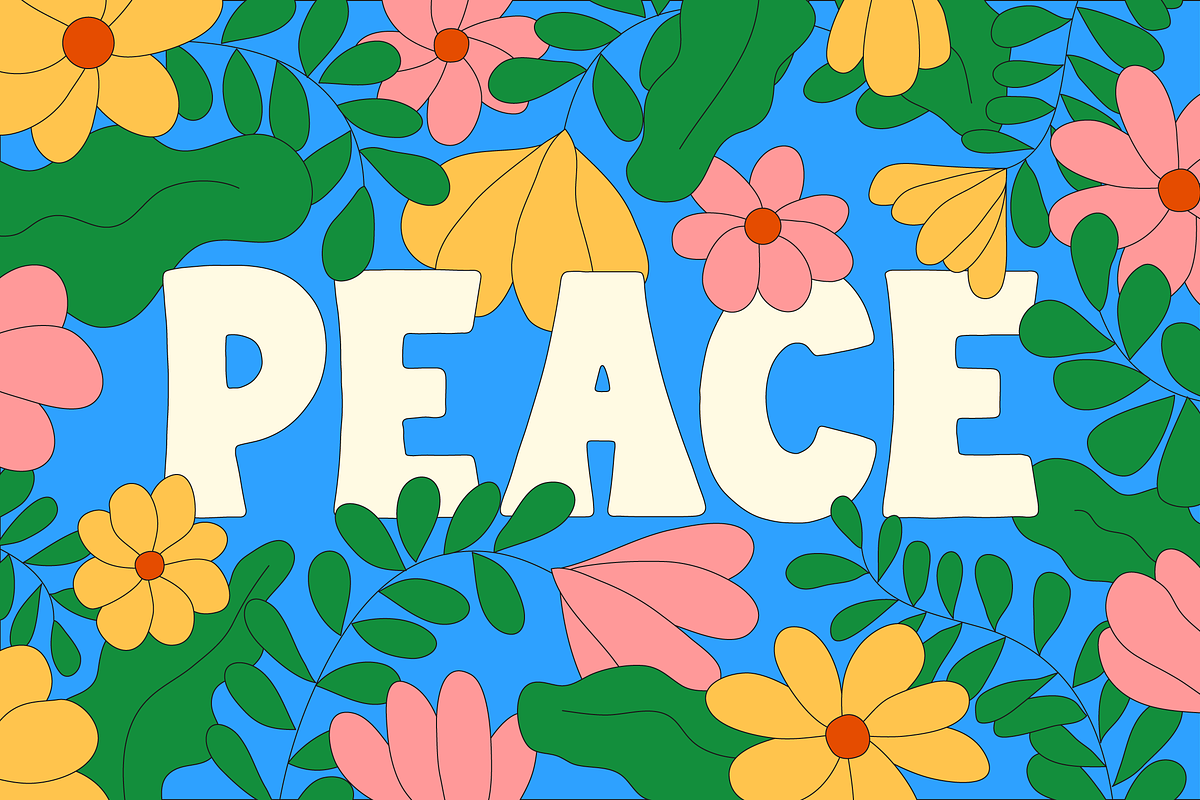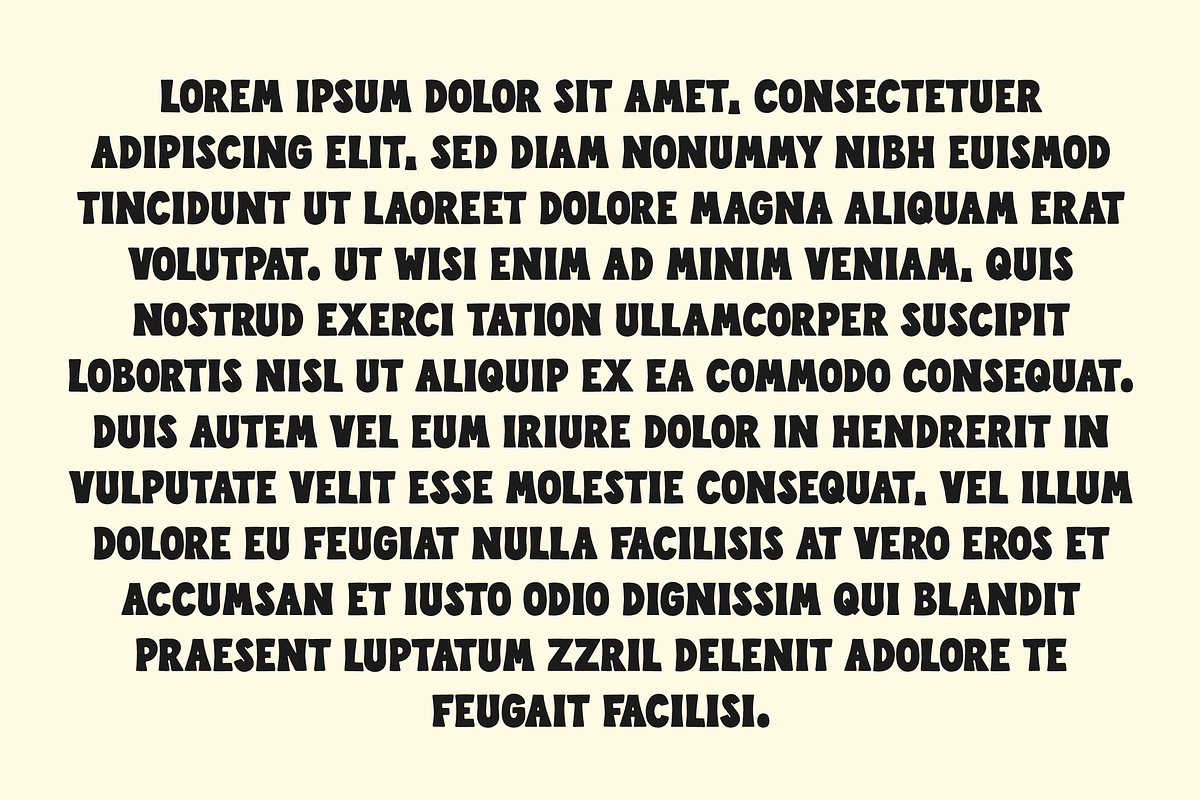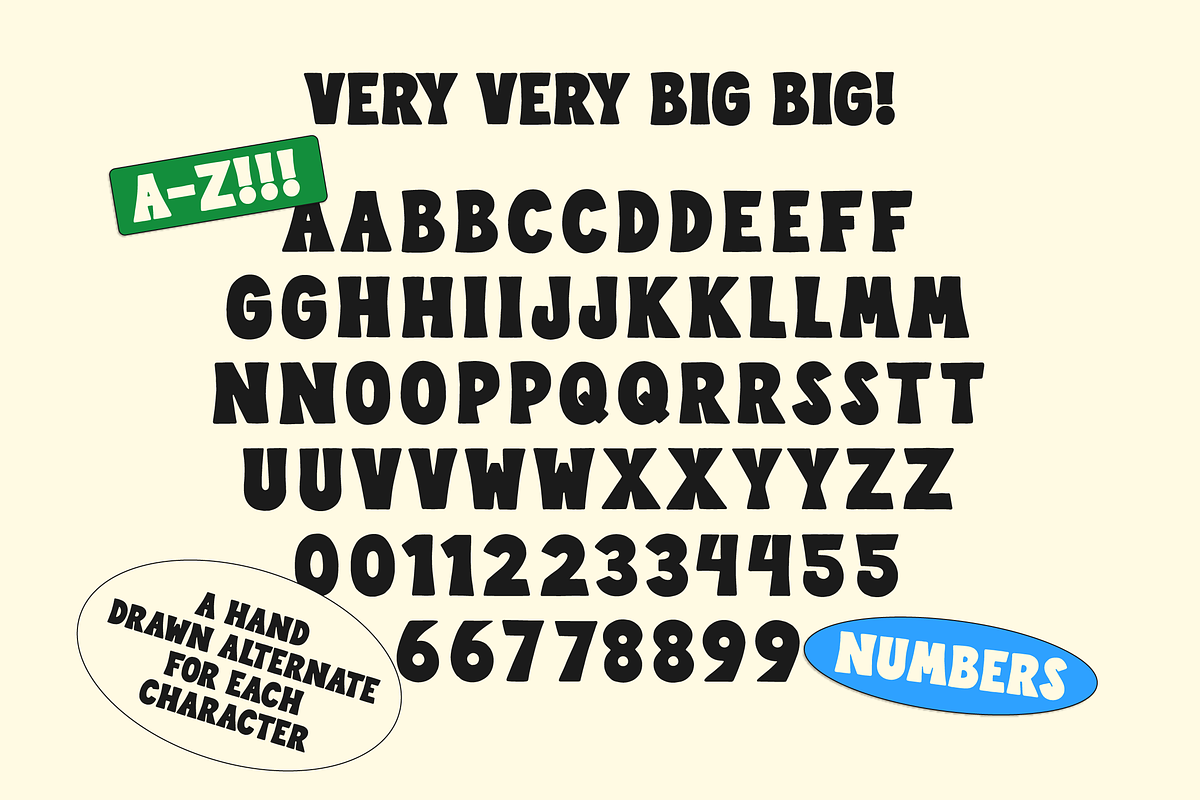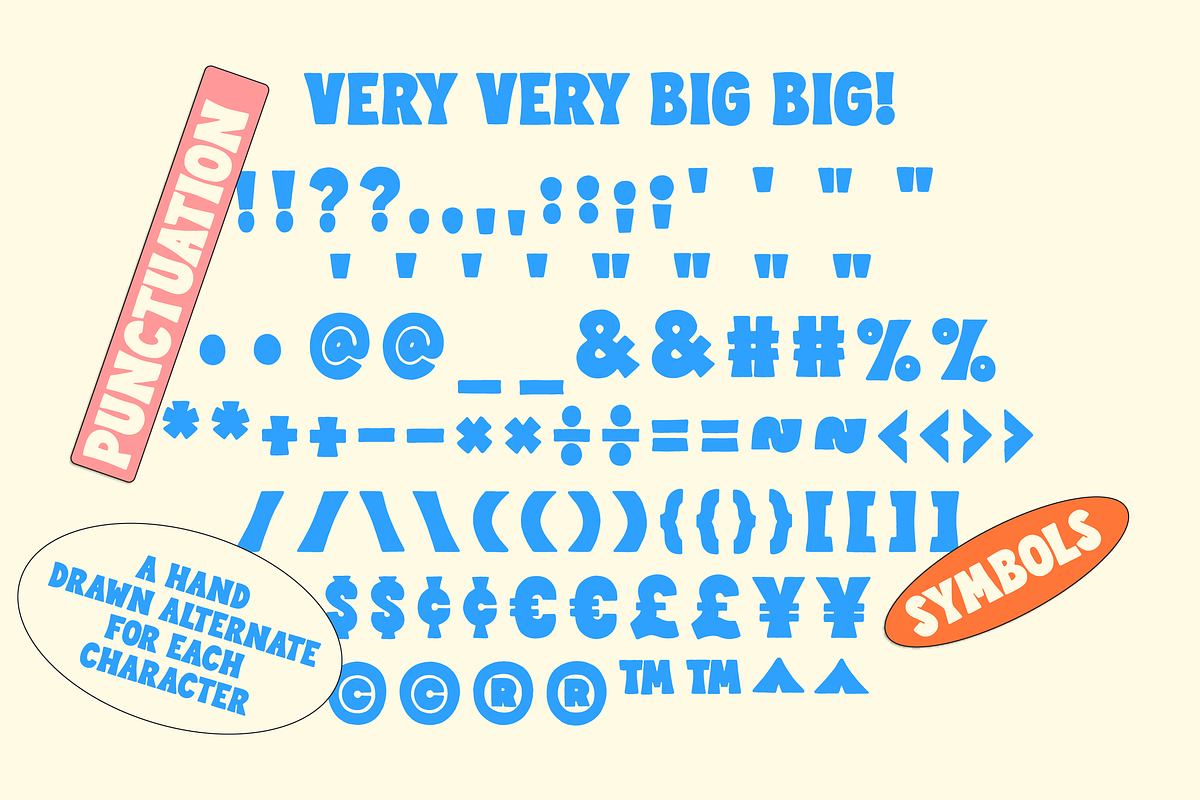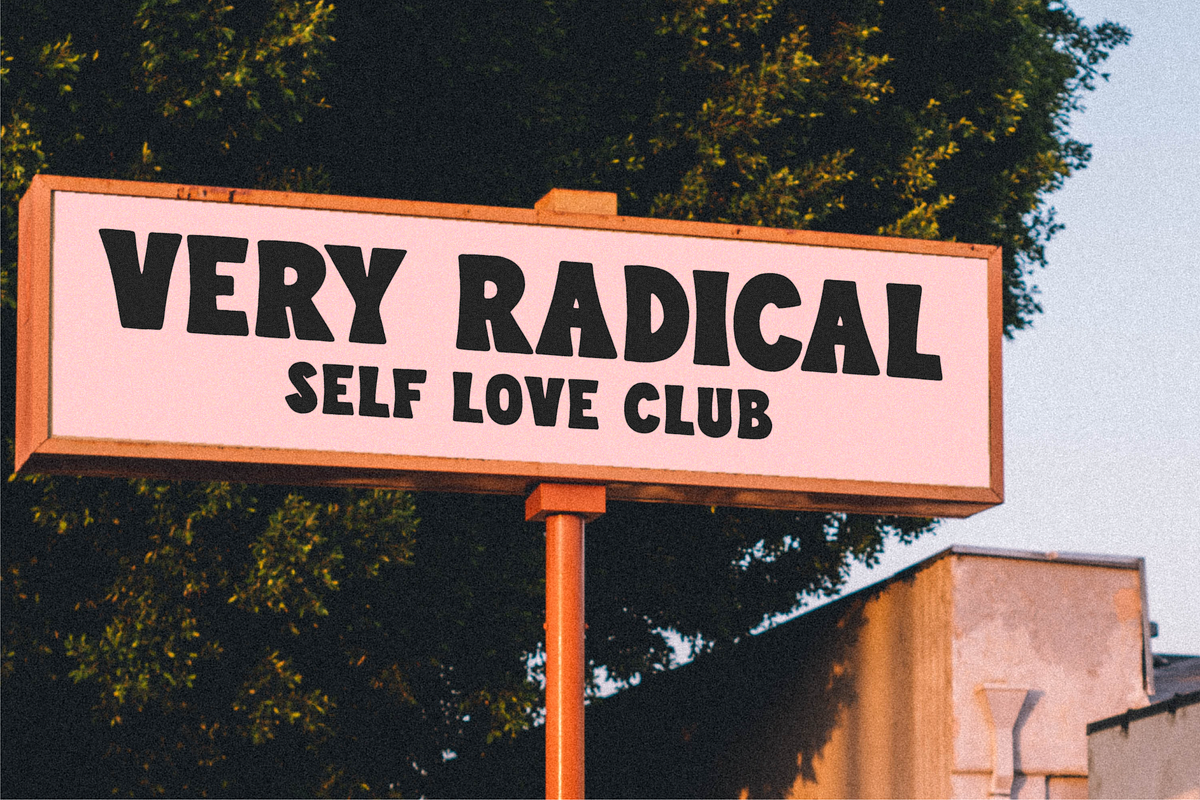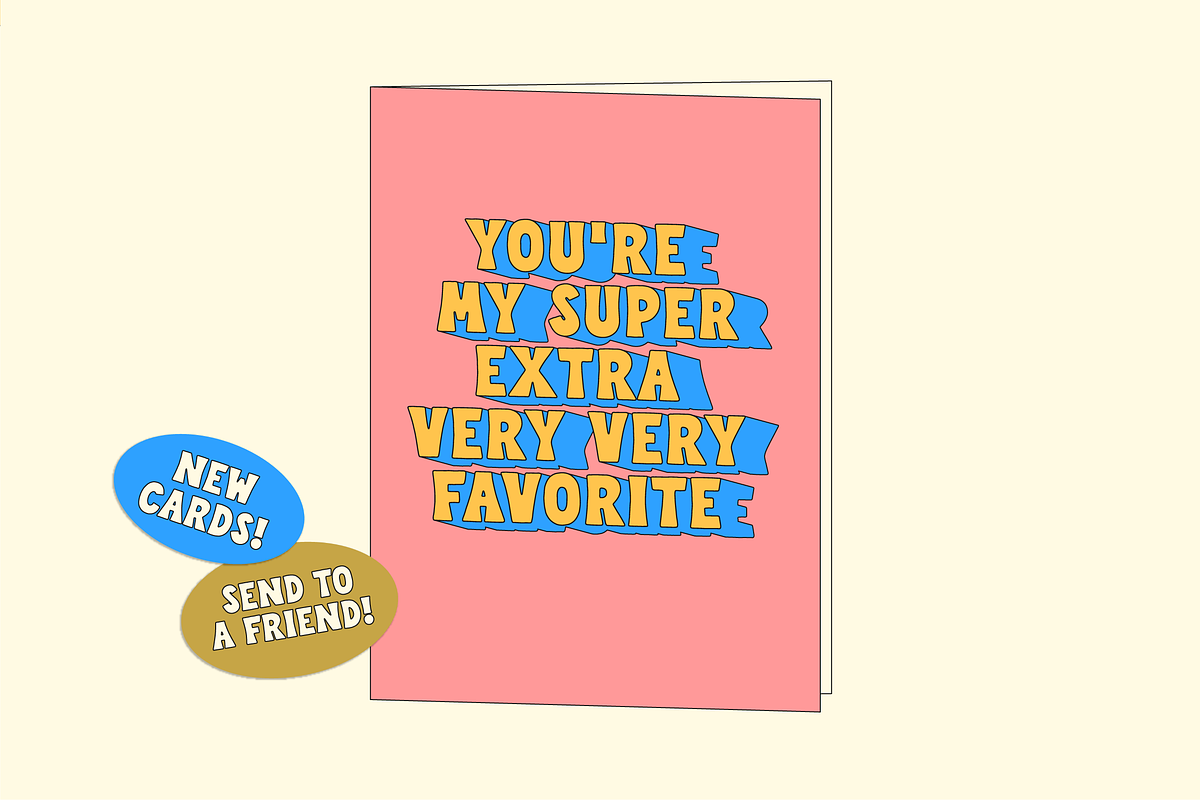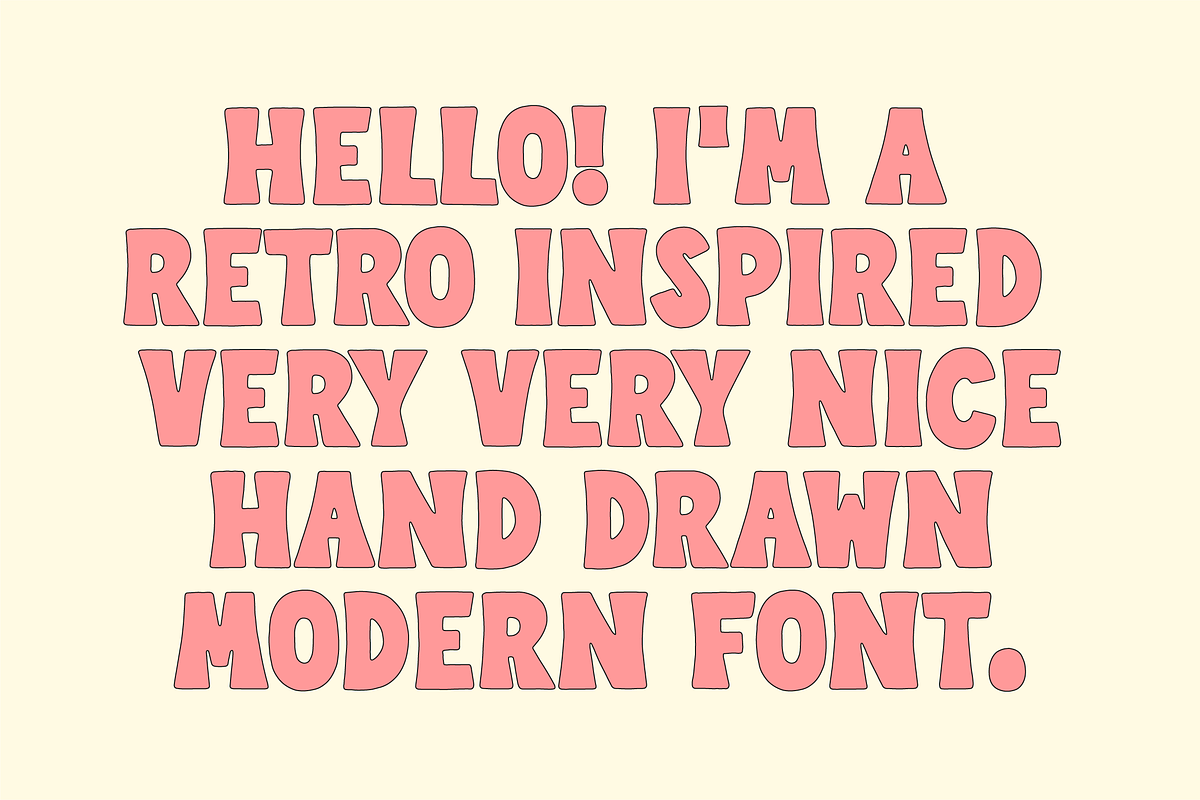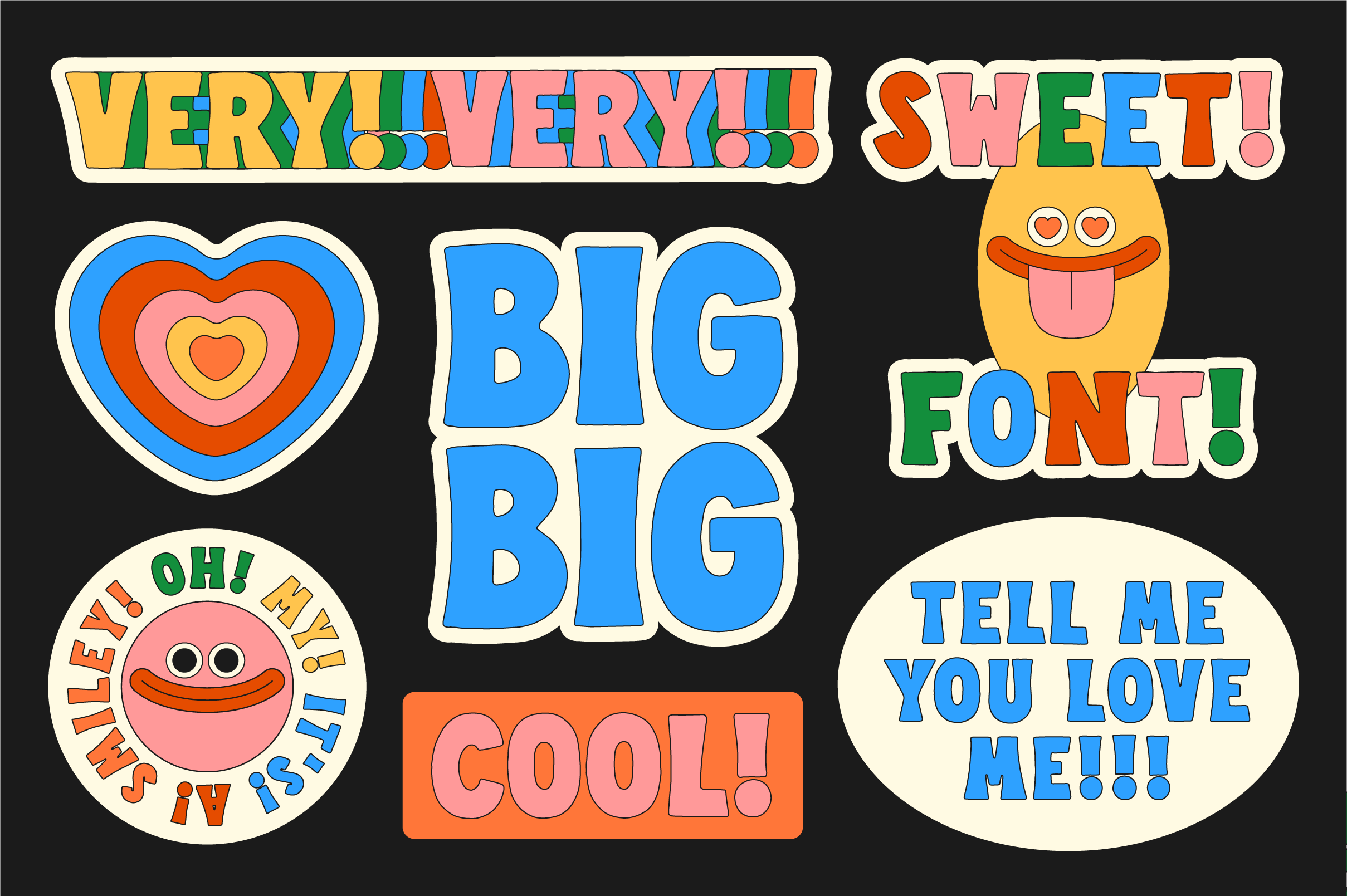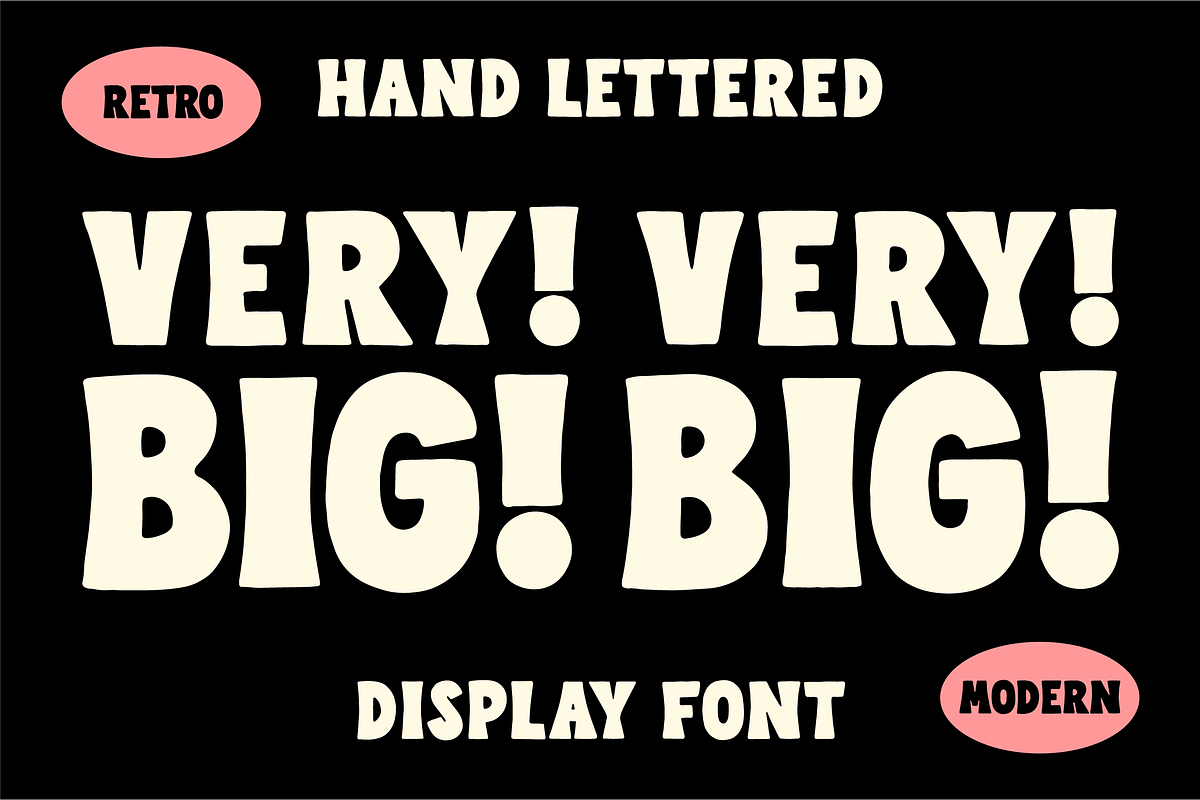
Big Big! A Retro Hand-lettered Font!
Very Very Big Big! A retro, modern, hand-lettered font! This font was hand drawn to give you a hand lettered look, and each character has a alternate for extra hand made goodness! Looks great as a logo font or used for display, quotes, art, and a handmade touch.
What's in the font? Uppercase Letters A-Z! Numbers! Symbols! Punctuation! An Alternate For Each Character! (see slides!)